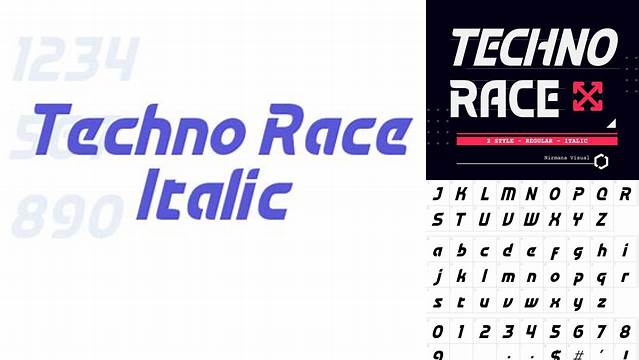
Techno Race Font: Free Download For Futuristic Designs
Are you looking to infuse your designs with a futuristic and dynamic edge? Look no further! The techno race font is your answer. This font style, characterized by its sleek lines, sharp angles, and modern aesthetic, is perfect for a wide range of projects, from video game graphics and website headers to branding materials and promotional flyers. In this comprehensive guide, we'll explore everything you need to know about the techno race font, including where to find it for free, how to use it effectively, and tips for creating stunning designs that capture the essence of speed and technology. So buckle up, designers, and let's dive into the exciting world of techno race fonts!
What is a Techno Race Font?
Techno race fonts, at their core, are designed to evoke a sense of speed, technology, and the future. Imagine the title sequence of a sci-fi movie or the branding of a high-performance sports car – these are the kinds of visuals that techno race fonts aim to emulate. These fonts often incorporate geometric shapes, sharp corners, and a streamlined appearance, giving them a distinct and modern look. Think of fonts like Arial Black, Helvetica, and Futura, but with a futuristic twist. They are designed to be bold, attention-grabbing, and instantly recognizable, making them ideal for projects that need to make a strong visual impact.
But what exactly makes a techno race font stand out from other font styles? It's the combination of several key elements. First, there's the geometric construction. Many techno race fonts utilize basic geometric shapes – squares, triangles, and circles – to create letterforms. This gives the font a clean, almost architectural feel. Second, there's the use of sharp angles. Instead of rounded curves, techno race fonts often feature sharp angles and pointed terminals, which contribute to their dynamic and energetic appearance. Third, the minimalist design is crucial. Many techno race fonts are stripped down to their essential forms, with unnecessary details removed. This simplicity enhances their readability and makes them suitable for both headlines and body text (although they are typically used more effectively in headlines and shorter text blocks). Finally, the futuristic aesthetic is the defining characteristic. These fonts simply look like they belong in the future, with their sleek lines and modern shapes conjuring images of advanced technology and high-speed vehicles.
The versatility of techno race fonts makes them a favorite among designers working in various fields. In the gaming industry, they're used for game titles, interface elements, and promotional materials. Their futuristic look perfectly complements the immersive worlds created in video games. In web design, they're often employed for headers, navigation menus, and call-to-action buttons, grabbing the user's attention and guiding them through the website. In branding, techno race fonts can help create a modern and cutting-edge image for businesses in industries such as technology, automotive, and sports. And in print design, they're ideal for posters, flyers, and brochures that need to convey a sense of speed, innovation, and excitement.
When choosing a techno race font, it's important to consider the overall tone and message of your project. A font with extremely sharp angles and a very minimalist design might be perfect for a sci-fi game, but it could be too aggressive for a corporate website. Conversely, a techno race font with slightly rounded edges and a more humanist feel might be a better choice for a tech startup that wants to project a friendly yet modern image. Ultimately, the best techno race font is the one that best reflects the personality and values of your brand or project. So, keep these things in mind, and you are already on the right path towards getting the correct techno race font for your needs.
- Font Squirrel: Font Squirrel is another excellent resource for free fonts. What sets Font Squirrel apart is its commitment to offering fonts that are 100% free for commercial use. They carefully curate their collection to ensure that all fonts meet this standard. Font Squirrel also provides a handy Font Identifier tool that can help you identify a font you've seen in an image or design. This can be incredibly useful if you're trying to find a specific techno race font but don't know its name. Their selection of techno race fonts is quite diverse, ranging from bold and angular designs to more subtle and refined options.
- DaFont: DaFont is a massive font archive with a huge selection of free fonts, including a wide variety of techno race fonts. The website's interface is a bit old-school, but don't let that fool you – it's a goldmine of typographic treasures. DaFont allows you to filter fonts by category, style, and license, making it easy to find what you're looking for. However, it's crucial to pay attention to the licensing information for each font on DaFont. While many fonts are free for personal use, some may require a commercial license. Be sure to check the details before using a font in a commercial project. Despite the licensing considerations, DaFont is an invaluable resource for designers seeking unique and creative techno race fonts.
- 1001 Free Fonts: As the name suggests, 1001 Free Fonts offers a vast collection of free fonts, including numerous techno race options. The website is well-organized and easy to navigate, with fonts categorized by style and theme. 1001 Free Fonts also provides previews of each font in various sizes and styles, allowing you to get a good sense of how it will look in your designs. Like DaFont, it's essential to check the licensing information for each font before using it in a project. However, the sheer variety of fonts available on 1001 Free Fonts makes it a worthwhile resource for any designer.
The techno race font is a powerful tool for designers looking to add a futuristic and dynamic touch to their projects. Its sleek lines, sharp angles, and modern aesthetic make it ideal for a wide range of applications, from video game graphics to website headers and branding materials. By understanding what makes a techno race font unique, knowing where to find them for free, and learning how to use them effectively, you can elevate your designs and create visually stunning results. Remember to use techno race fonts sparingly, consider the context of your project, pair them wisely with other fonts, and pay attention to kerning and leading. With these tips in mind, you'll be well-equipped to harness the power of techno race fonts and create designs that capture the essence of speed, technology, and the future. So go ahead, download a free techno race font today, and start experimenting with the exciting world of futuristic typography! Get your designs ready and techno race your way to success. Let your creativity lead the way, and watch how a simple font can totally transform your artistic endeavors.